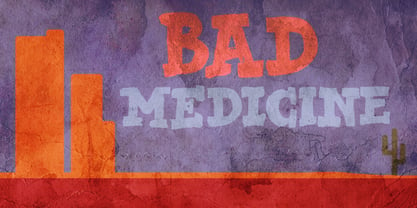
Bad Medicine
by Hanoded
About Bad Medicine Font Family
Bad Medicine is a rough Western slab serif font. It was made with a brush and China ink. Bad Medicine is quite a beefy typeface, so use it for your posters, product packaging and book covers! Comes with a herd of diacritics as well.
Designers: David Kerkhoff
Publisher: Hanoded
Foundry: Hanoded
Design Owner: Hanoded
About Hanoded
Hanoded is a type foundry based in The Netherlands and run by David Kerkhoff. After finishing his journalism studies, David traveled extensively and ended up in Israel where he stayed for some years. David had a lot of jobs – zookeeper, goldsmith, artist and cook (to name a few), but settled on working as a tour guide and photographer. David specializes in hand printed typefaces and uses brushes, pens, ink and paint to create his – sometimes scary looking – fonts. He lives in a wee hamlet near the Rhine river, with his wife, three kids, a handful of extremely spoiled chickens and two guinea pigs called Cookie and Chippie.The Premium foundry page can be viewed https://www.myfonts.com/a/font/premium-font-collections/hanoded